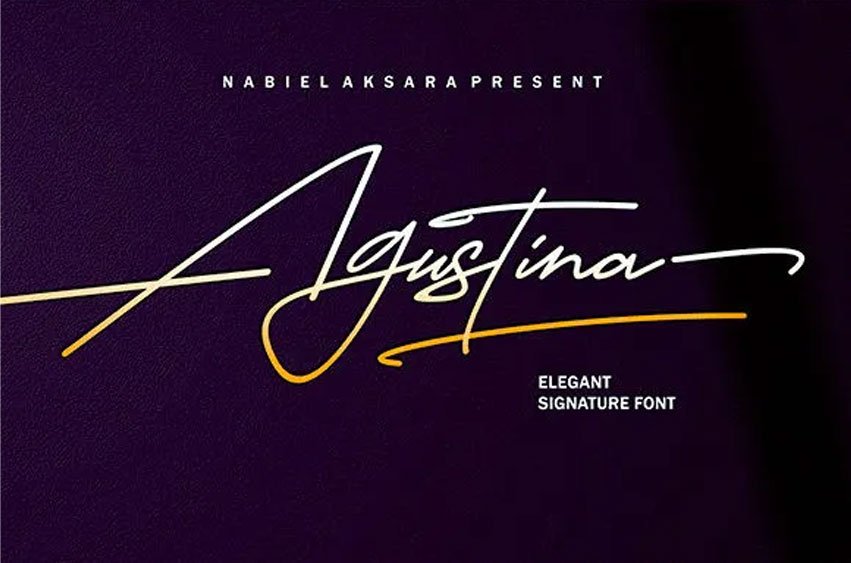
Agustina Signature Font is a stunning signature font that will elevate any design project with its contemporary charm.
Most suitable for poster design, headlines, quote writing, pamphlets, greeting cards, product packaging, book covers, logotypes, album covers, etc.